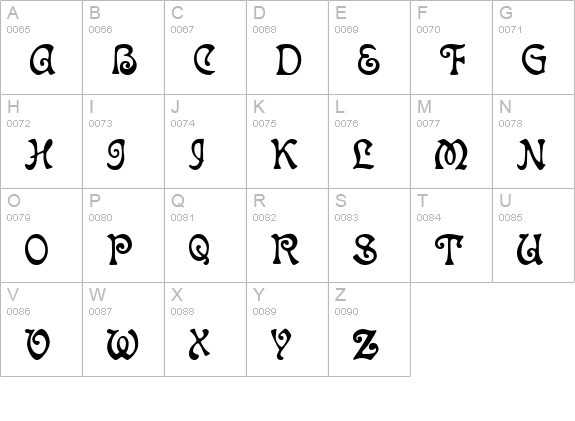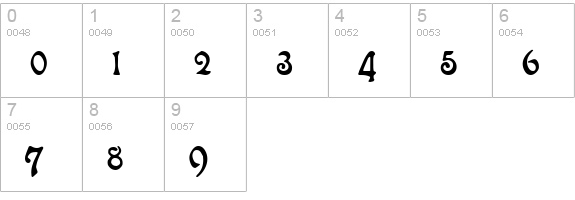
Atlantis Medium Font Details
Atlantis Medium is a balanced, medium-weight variant in the Atlantis typeface family \xE2\x80\x94 well suited to sub-headlines, navigation, and balanced editorial work.
The Atlantis Medium font is a modern and stylish typeface that exudes elegance and sophistication. Its clean lines and balanced proportions make it perfect for various design projects, from branding to editorial design. The font's versatility allows it to be used for both headings and body text, adding a touch of refinement to any layout. What sets Atlantis Medium apart is not only its sleek design but also the fact that it is available for free download at FontsMarket.com. This means that you can easily access this high-quality font without any cost, making it a valuable addition to your font library. Whether you're a designer looking to elevate your projects or a hobbyist looking for a stylish typeface, Atlantis Medium is a fantastic choice that won't break the bank. Download it today and start creating stunning designs with ease!